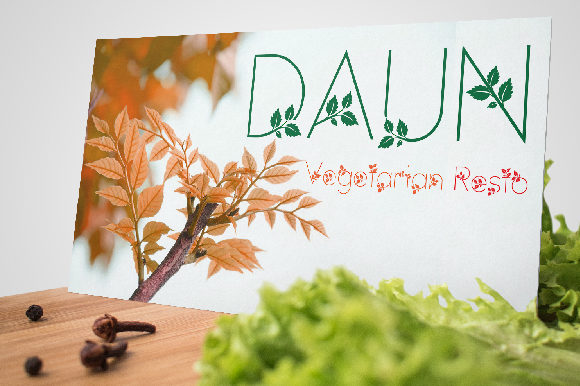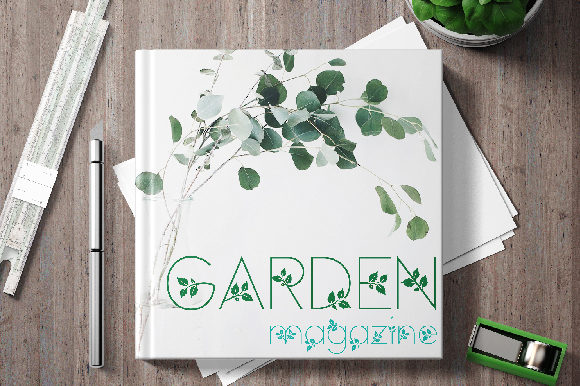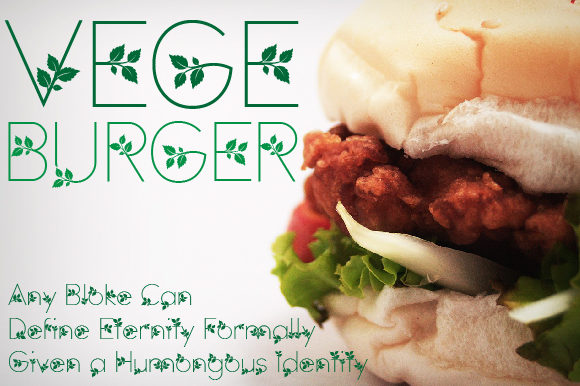
Introducing Greysia Font: A Fresh and Flawless Typeface for Designers and Crafters
The Greysia font is a fresh and exciting typeface that has been making waves in the design community. Inspired by the vibrant and delicate spring leaves, this font is perfect for designers and crafters who are looking to add a touch of elegance and sophistication to their work. In this article, we’ll take a closer look at the Greysia font, its features, and how it can be used to elevate your designs.
The Inspiration Behind Greysia Font
The Greysia font was inspired by the beauty of fresh spring leaves. The designer aimed to capture the delicate and vibrant essence of these leaves and translate it into a typeface that exudes freshness and elegance. The result is a font that is both modern and timeless, making it perfect for a wide range of design applications.
Key Features of Greysia Font
The Greysia font boasts a range of features that make it a standout typeface. Some of its key features include:
- Unique and Elegant Design: The Greysia font features a unique and elegant design that is sure to turn heads. Its delicate lines and curves make it perfect for designs that require a touch of sophistication.
- Fresh and Modern Look: The font’s inspiration from spring leaves gives it a fresh and modern look that is perfect for designs that require a youthful and vibrant feel.
- Highly Versatile: The Greysia font is highly versatile and can be used for a wide range of design applications, including branding, packaging, and advertising.
- Easy to Read: Despite its elegant design, the Greysia font is easy to read, making it perfect for body text and other applications where legibility is key.
Who is Greysia Font Perfect for?
The Greysia font is perfect for designers and crafters who are looking to add a touch of elegance and sophistication to their work. Some of the design professionals who can benefit from using the Greysia font include:
- Graphic Designers: Graphic designers can use the Greysia font to create stunning branding and advertising materials that require a touch of elegance and sophistication.
- Packaging Designers: Packaging designers can use the Greysia font to create beautiful and eye-catching packaging that stands out on store shelves.
- Web Designers: Web designers can use the Greysia font to create stunning websites that require a touch of elegance and sophistication.
- Crafters: Crafters can use the Greysia font to create beautiful and unique crafts, such as handmade cards and gift tags.
How to Use Greysia Font in Your Designs
Using the Greysia font in your designs is easy. Here are a few tips to get you started:
- Pair it with Other Fonts: The Greysia font can be paired with other fonts to create a unique and interesting design. Try pairing it with a bold font for a striking contrast.
- Use it for Headings: The Greysia font is perfect for headings and titles. Use it to create stunning headings that grab attention.
- Experiment with Colors: The Greysia font can be used with a range of colors to create different effects. Experiment with different colors to find the one that works best for your design.
The Greysia font is a fresh and exciting typeface that is perfect for designers and crafters who are looking to add a touch of elegance and sophistication to their work. Its unique and elegant design, fresh and modern look, and high versatility make it a standout font that can be used for a wide range of design applications. Whether you’re a graphic designer, packaging designer, web designer, or crafter, the Greysia font is a must-have in your font library.
- What inspired the creation of the Greysia font?: The Greysia font was inspired by the beauty of fresh spring leaves.
- What are the key features of the Greysia font?: The Greysia font features a unique and elegant design, fresh and modern look, high versatility, and ease of readability.
- Who is the Greysia font perfect for?: The Greysia font is perfect for designers and crafters who are looking to add a touch of elegance and sophistication to their work.